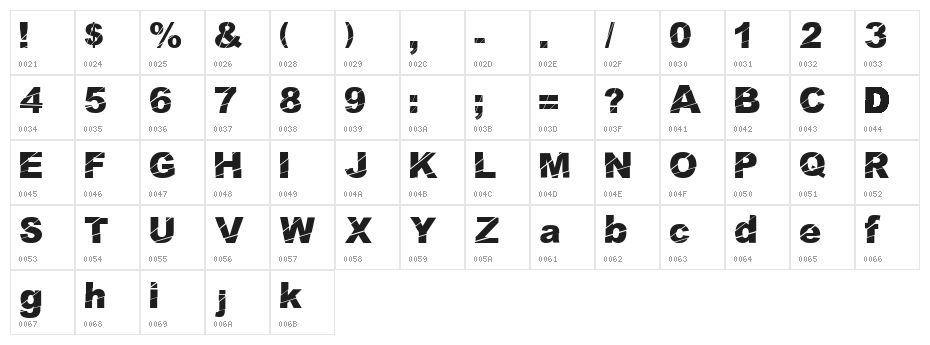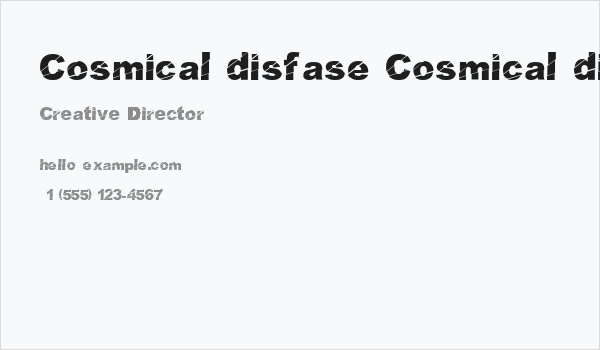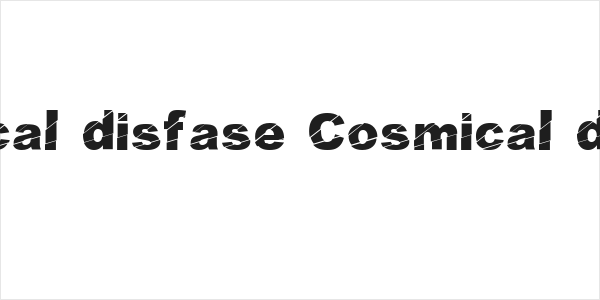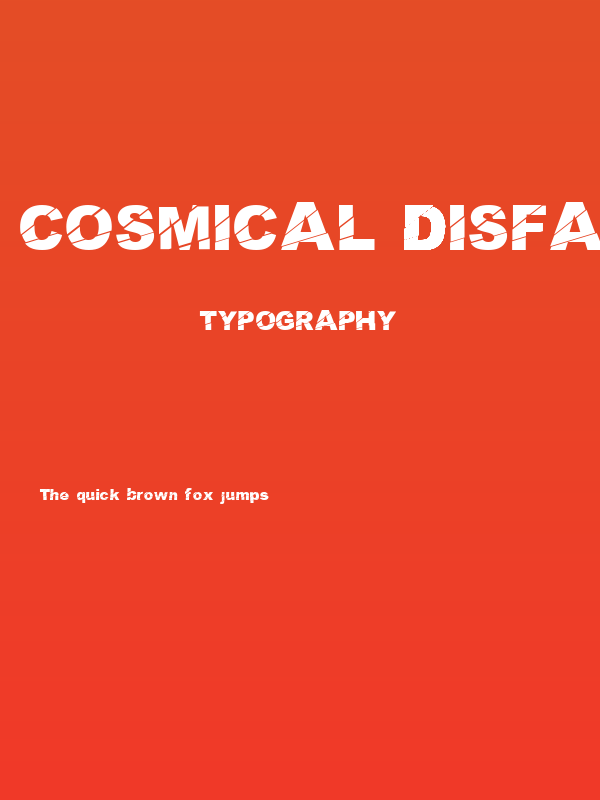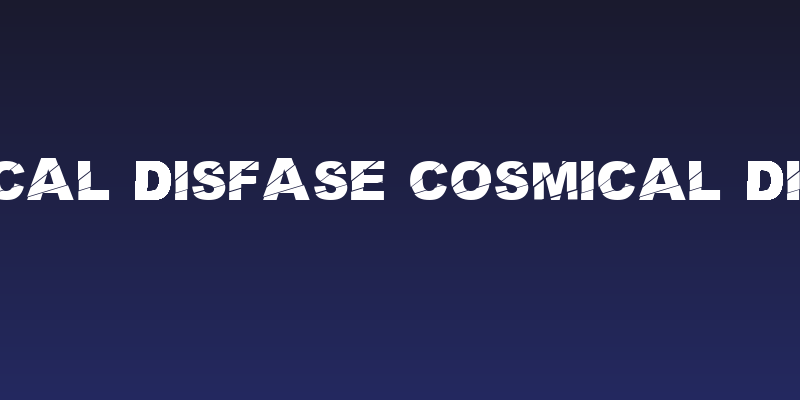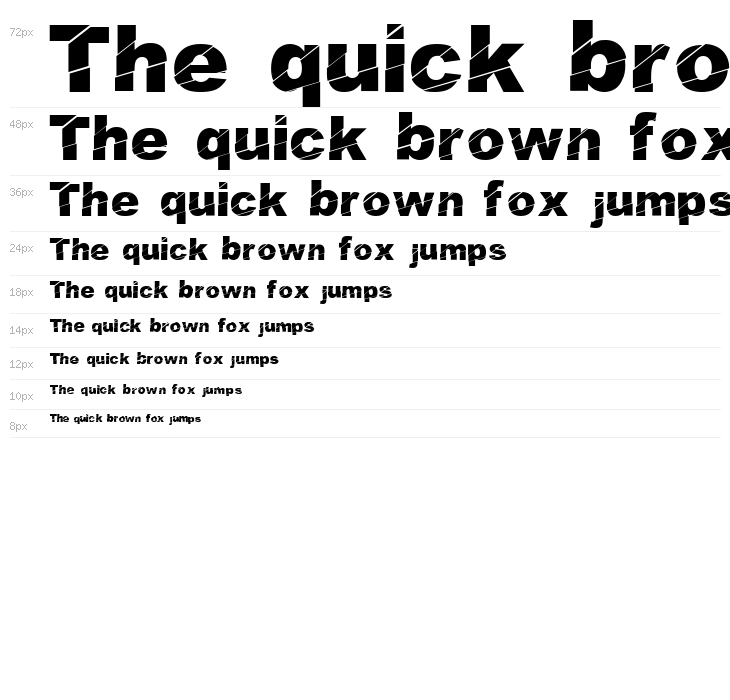
Cosmical disfase Font
Cosmical disfase Description
This font features a bold, geometric design with a unique distressed effect, giving it a modern and edgy appearance. The characters are constructed with sharp angles and straight lines, creating a sense of movement and dynamism. The distressed pattern within each letter adds a layer of texture, making it stand out in display settings. The uppercase and lowercase letters maintain a consistent style, while the numerals and special characters complement the overall aesthetic. This font is ideal for projects that require a bold statement or a contemporary, artistic touch.